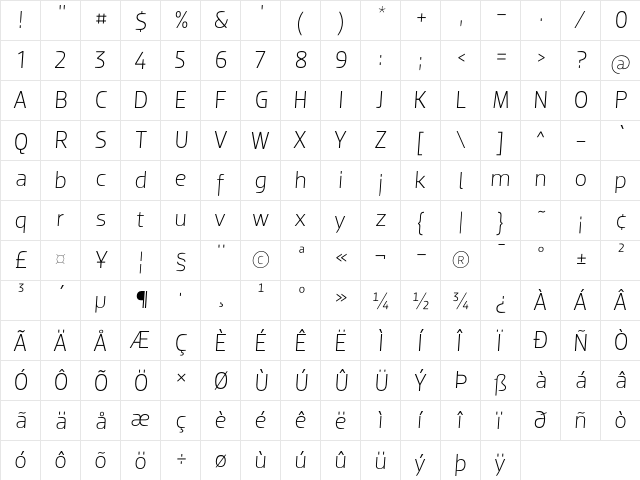
Dobra Light Italic
| Foundry | Dino dos Santos _DSType |
| Designer | Dino dos Santos |
Design Context for Dobra Typeface
Dobra is a composed and adaptable typeface that performs quietly and consistently across a wide range of design contexts. The slanted form adds forward momentum and visual energy. The delicate stroke weight brings airiness and refinement to layouts.
Pro Tip: Use Dobra for emphasis, pull quotes, and subheadings where its slanted energy can add rhythm to the layout.